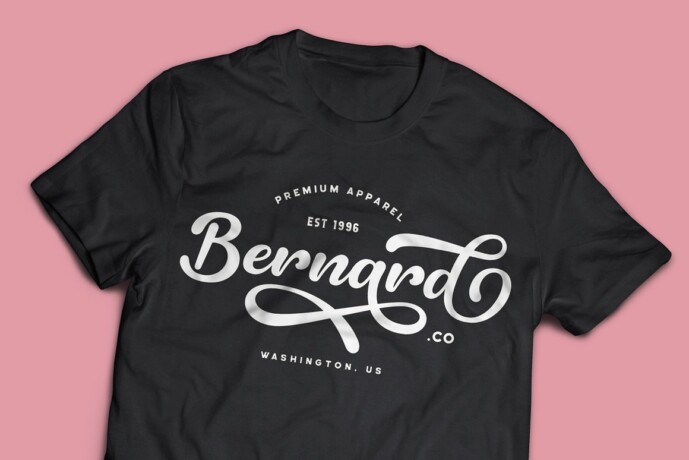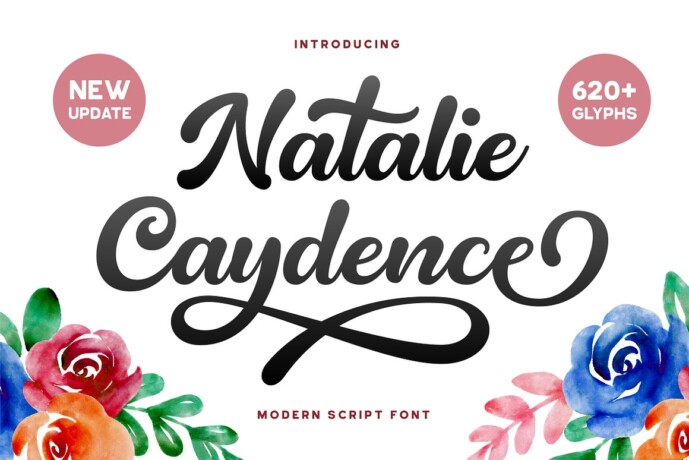
Natalie Caydence Typeface
Designer: Grezline Studio
Natalie Caydence Typeface is a playful and elegant script font crafted very carefully. Natalie Caydence is perfect use for a logo for branding, typography design, christmas card, product packaging, invitation, quotes, t-shirt design, label poster, special events and anything that need elegant taste.